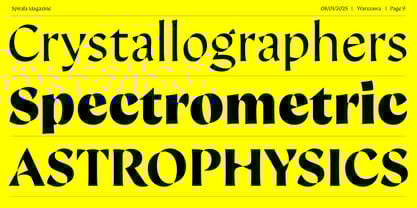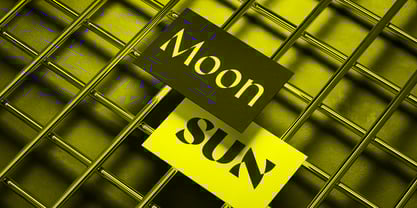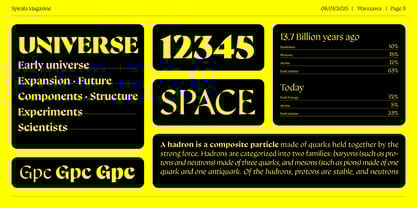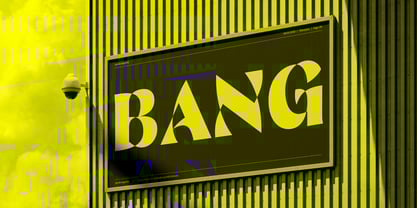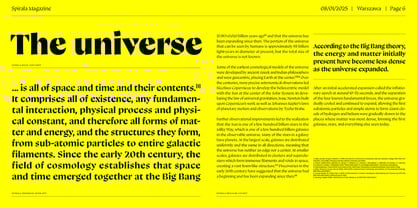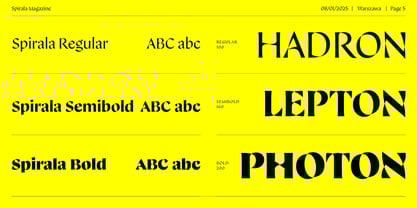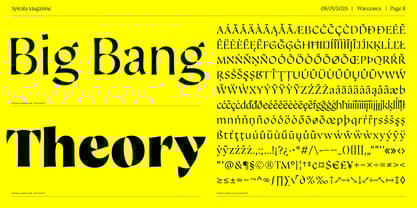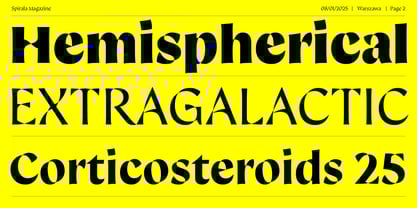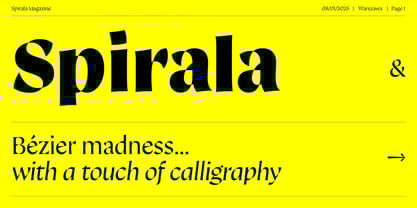
Spirala Display
by Machalski
The Spirala Display Font Family was designed by Mateusz Machalski and published by Machalski. Spirala Display contains 8 styles and family package options. More about this family
Spirala is a typeface that, on the one hand alludes to calligraphy with a chamfered nib, on the other, explores the limits of what we can do with Bezier curves. Despite its experimental nature, Spirala can be used in the type setting, giving them a dynamic structure. The overall design is the way stencil-style typefaces are drawn, so the family will work well wherever we need divided elements. Spirala consists of four styles and a complementary italic. Under the creative direction of Mateusz Machalski, the project involved: Karol Mularczyk, Malgorzata Bartosik & Borys Kosmynka